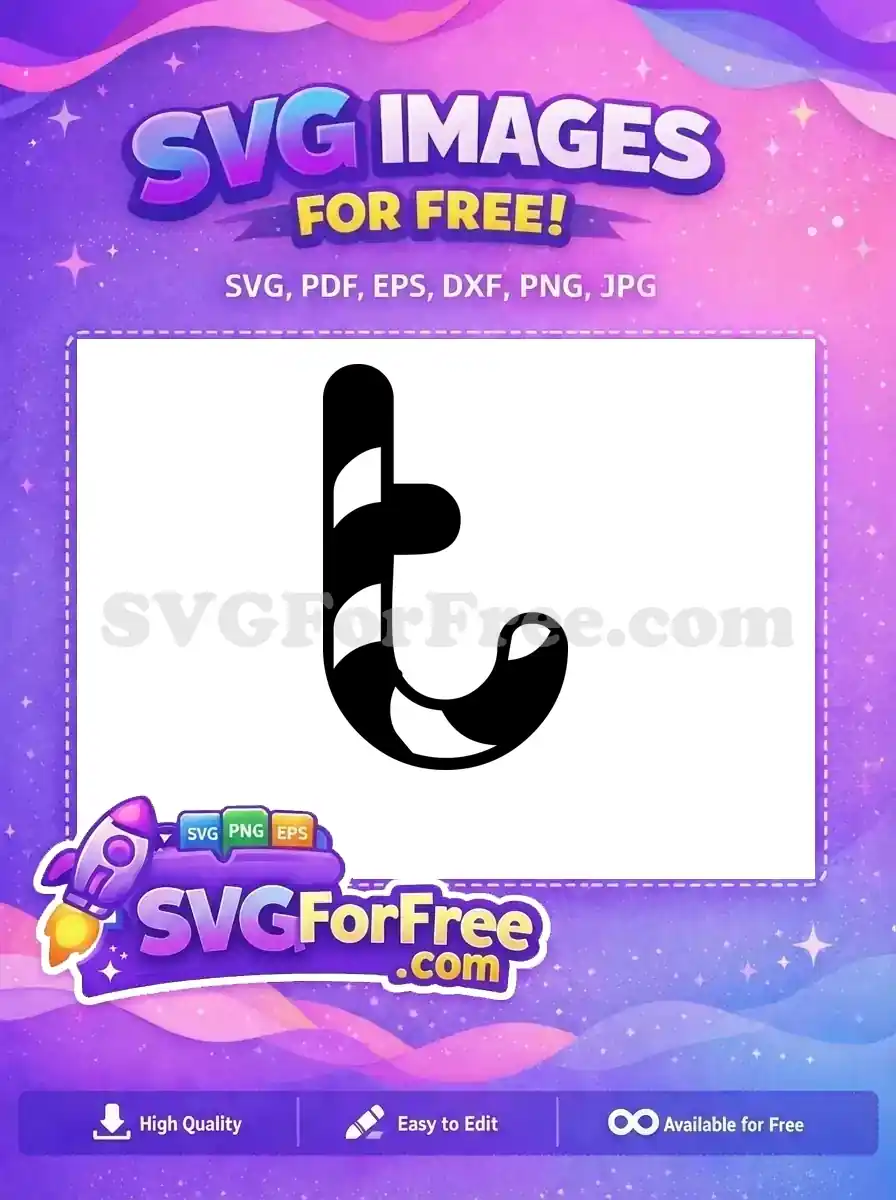
Free Candy Cane Font Free Letter T Christmas Free SVG – Instant Download
Playful striped letter t resembling a candy cane, a fun free design for festive or whimsical text.
Free Candy Cane Font Free Letter T Christmas Free SVG